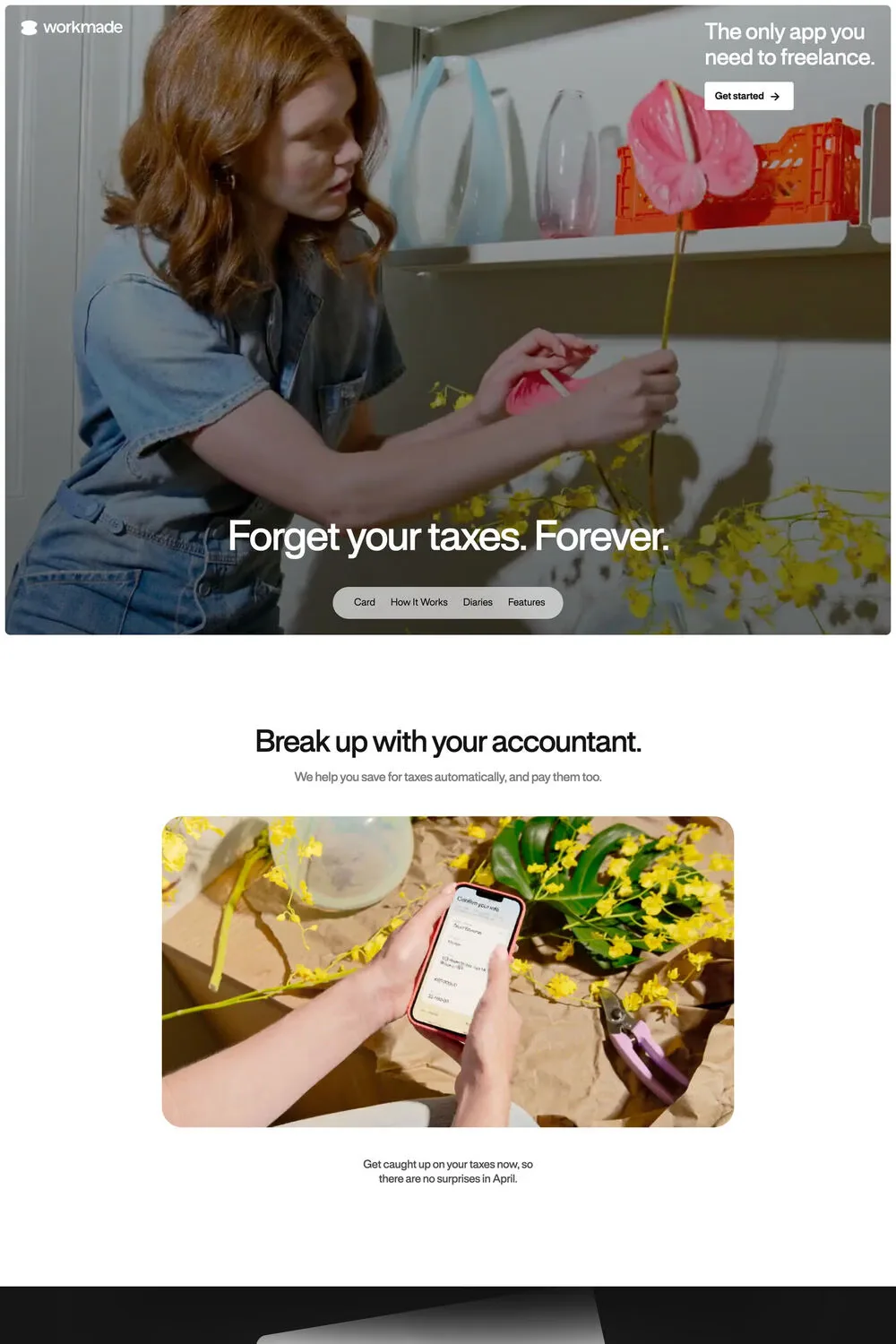
Rules is a display typeface from Blaze Type.
Updated in 2024 after an extensive work on the overall structure of the font family to bring forward a wider range of possibilities in terms of axis, weights and width. Rules font is a contemporary interpretation of the neo grotesque font era, with an edge. Rooted in Swiss Modern type inspiration and built with a strong structure in the respect of type design tradition.